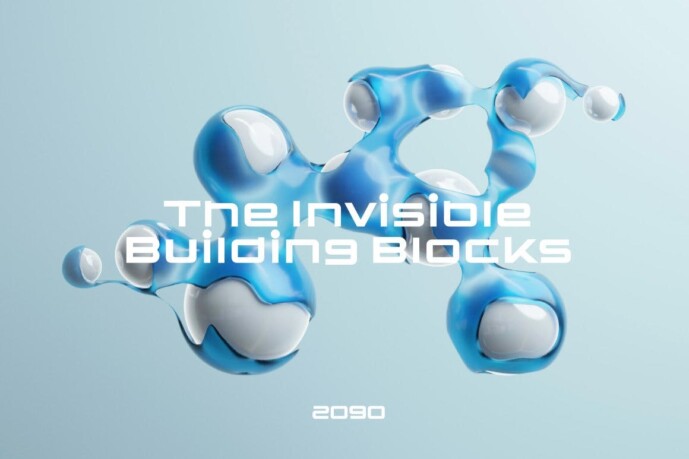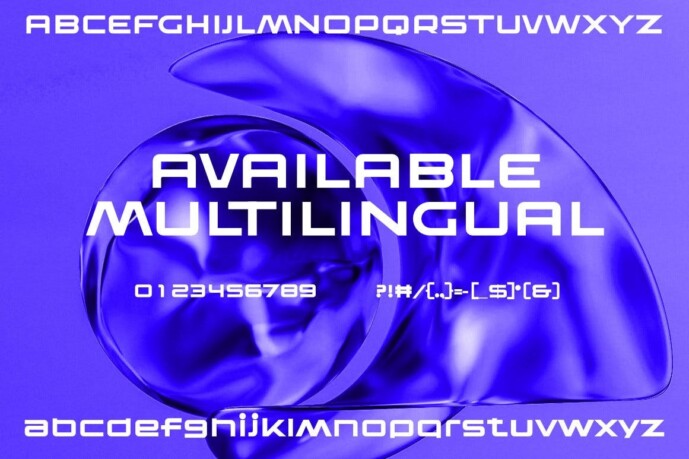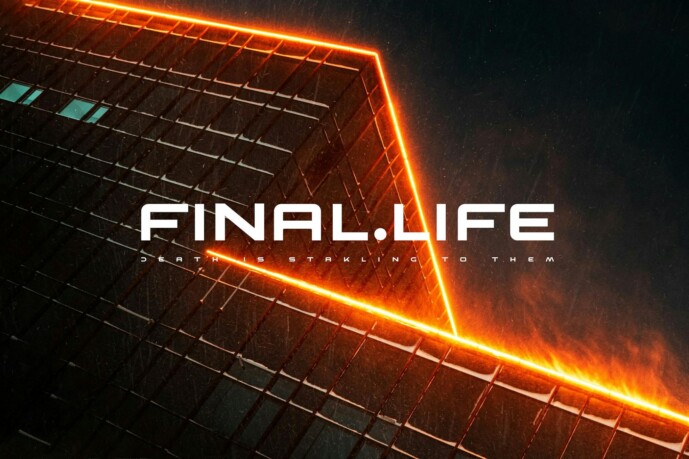
Fear Robot Font
Fear Robot Font, With its clean lines and bold presence, it cuts through the noise of the digital world and demands to be seen and heard. It’s the perfect voice for your techno project, a font that embodies the raw power and pulsating energy of the genre. So turn up the volume and let the words take center stage